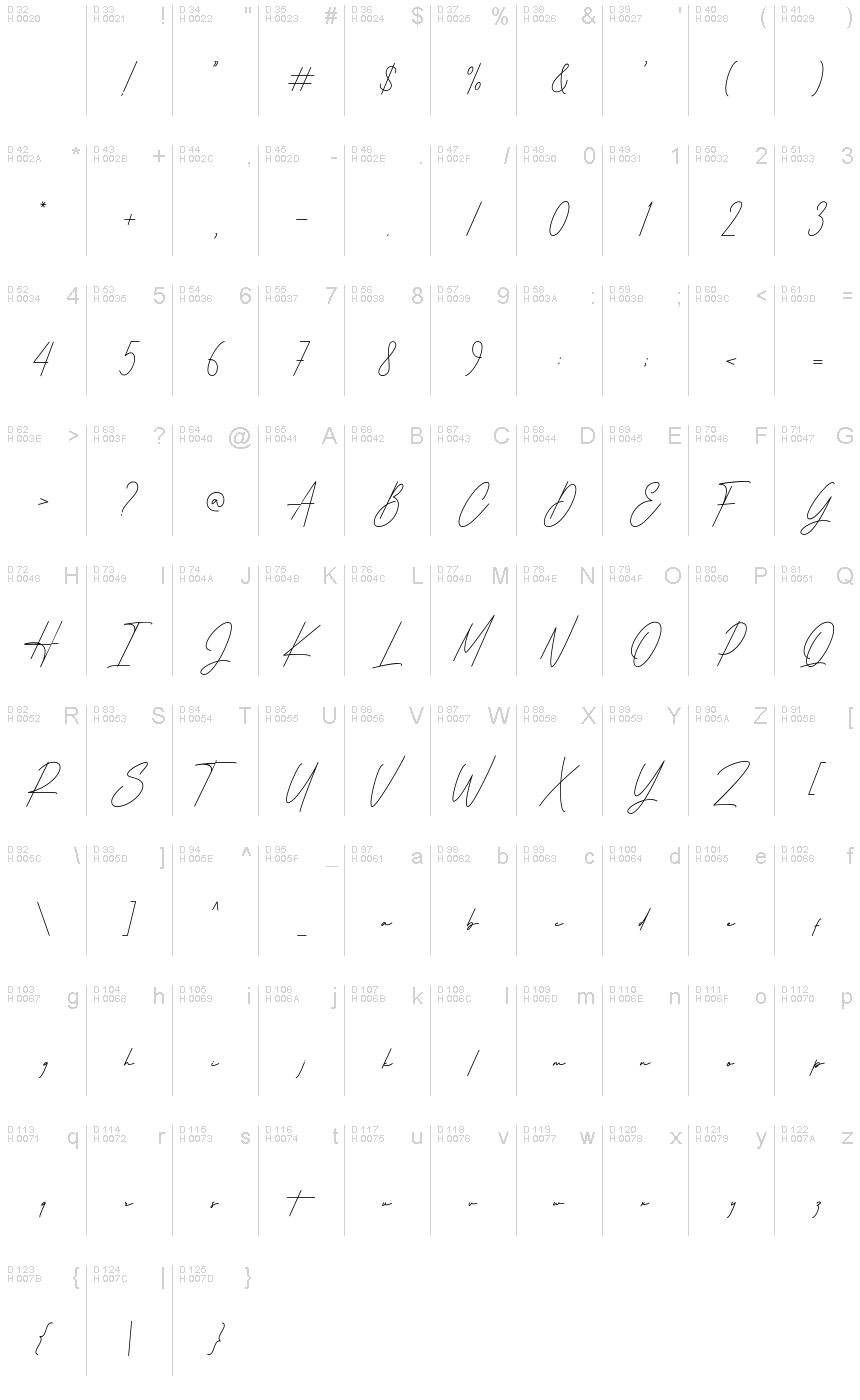
Hatshows Signature
Hatshows Signature, crafted by MJB Letters, exudes a personal touch with its handwritten style that mimics the intimate flourish of a genuine signature. Its light strokes and elegant curves convey an air of sophistication and exclusivity. The font's natural flowing lines and organic form lend it an aesthetic that is both approachable and upscale, making it ideal for branding projects that require a bespoke touch.
The graceful charm of Hatshows Signature makes it perfect for invitations, personal branding, product packaging, and any design space where the essence of individuality and handcrafted elegance needs to be highlighted. This font captures the essence of personalized sophistication in every character.